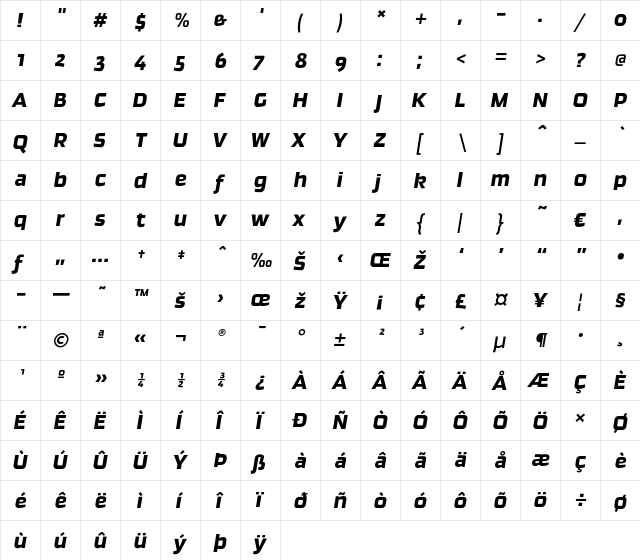
Ginger-RegularItalic Regular
Design Context for Ginger-RegularItalic Typeface
Ginger-RegularItalic is a composed and adaptable typeface that performs quietly and consistently across a wide range of design contexts. The slanted form adds forward momentum and visual energy.
Pro Tip: Use Ginger-RegularItalic for emphasis, pull quotes, and subheadings where its slanted energy can add rhythm to the layout.